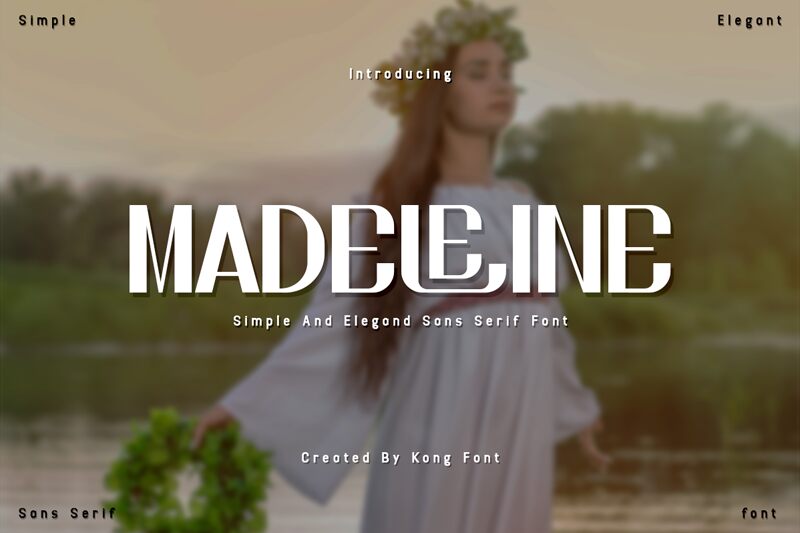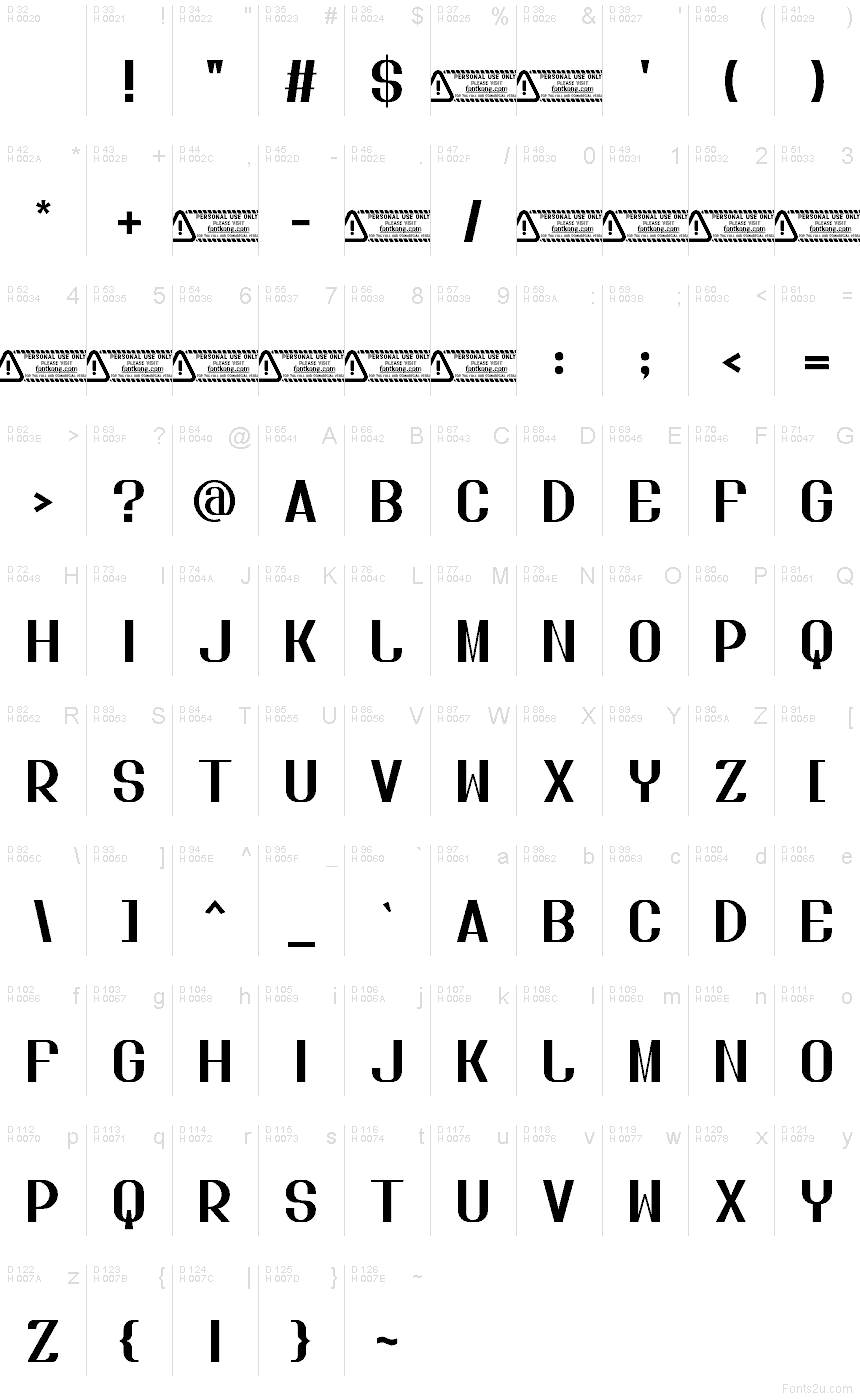
Madeleine font by Kong Font is a free sans serif typeface with a razor-thin silhouette and bold, inky strokes that feel straight off a fashion runway. Ultra-tall letters, dramatic verticals, and sharply cut curves give it a sleek, editorial presence, somewhere between Art Deco signage and a luxury perfume logo. There’s a tension between its narrow width and solid weight that makes every word look intentional and intensely styled.
Using Madeleine, headlines and wordmarks snap into place with a striking, poster-like impact, even in just a few letters. This free font shines on fashion branding, beauty packaging, magazine covers, posters, album artwork, and dramatic social media graphics. Keep it large with generous letter spacing so those sculpted forms can breathe, and pair Madeleine with a clean, neutral grotesk for supporting text to let its theatrics take center stage.